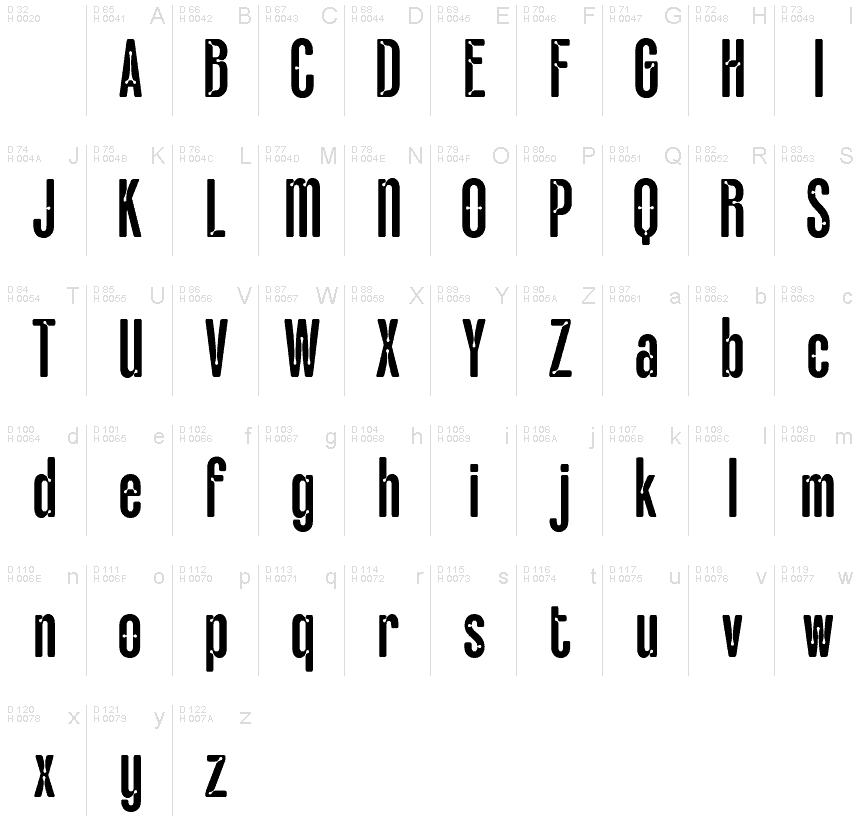
CS Arylide Regular Demo
CS Arylide font by Craft Supply Co. is a condensed sans serif font with eroded effects that add creative authenticity and originality to every display. With geometric influences, it combines unusual cutout details that give a rough finish to the letters with the insertion of some decorative elements that satisfy creative expectations.
Free for download, CS Arylide can be added to personalized pins or social media projects like posts and stories. Use it for online platforms that focus on industrial and modern design or for typography art, wall decorations, branding designs, websites headers, business cards or electronic advertisements.